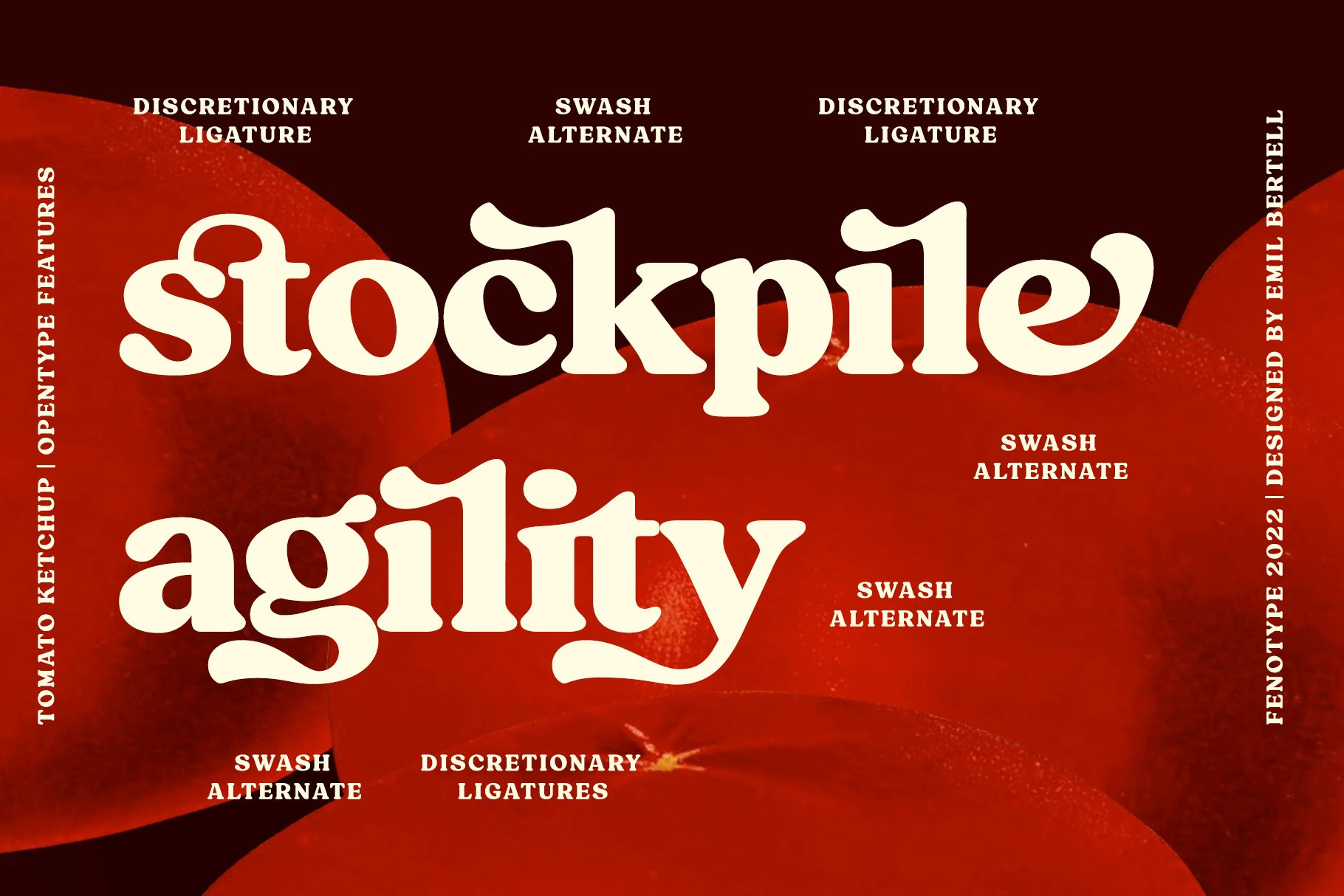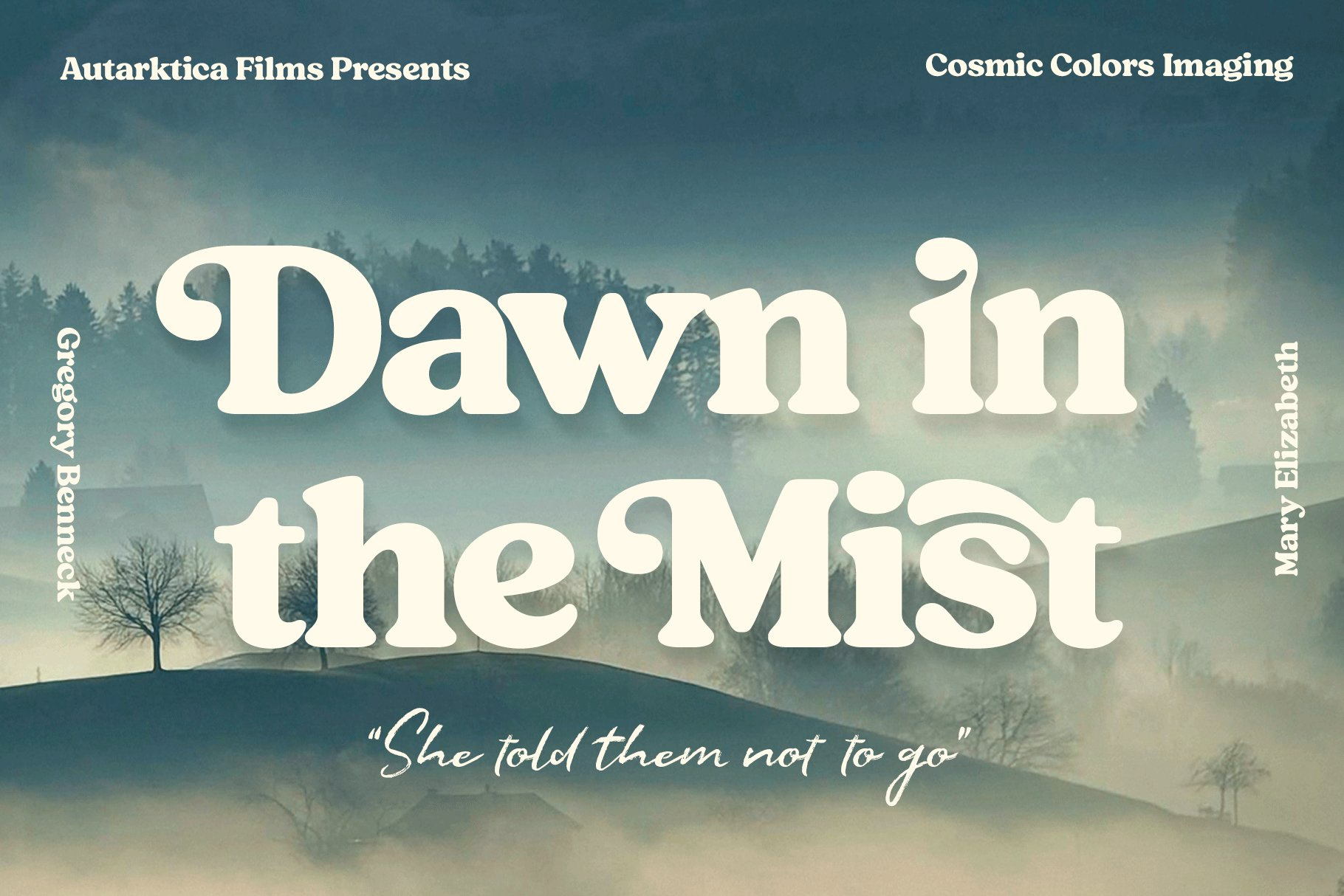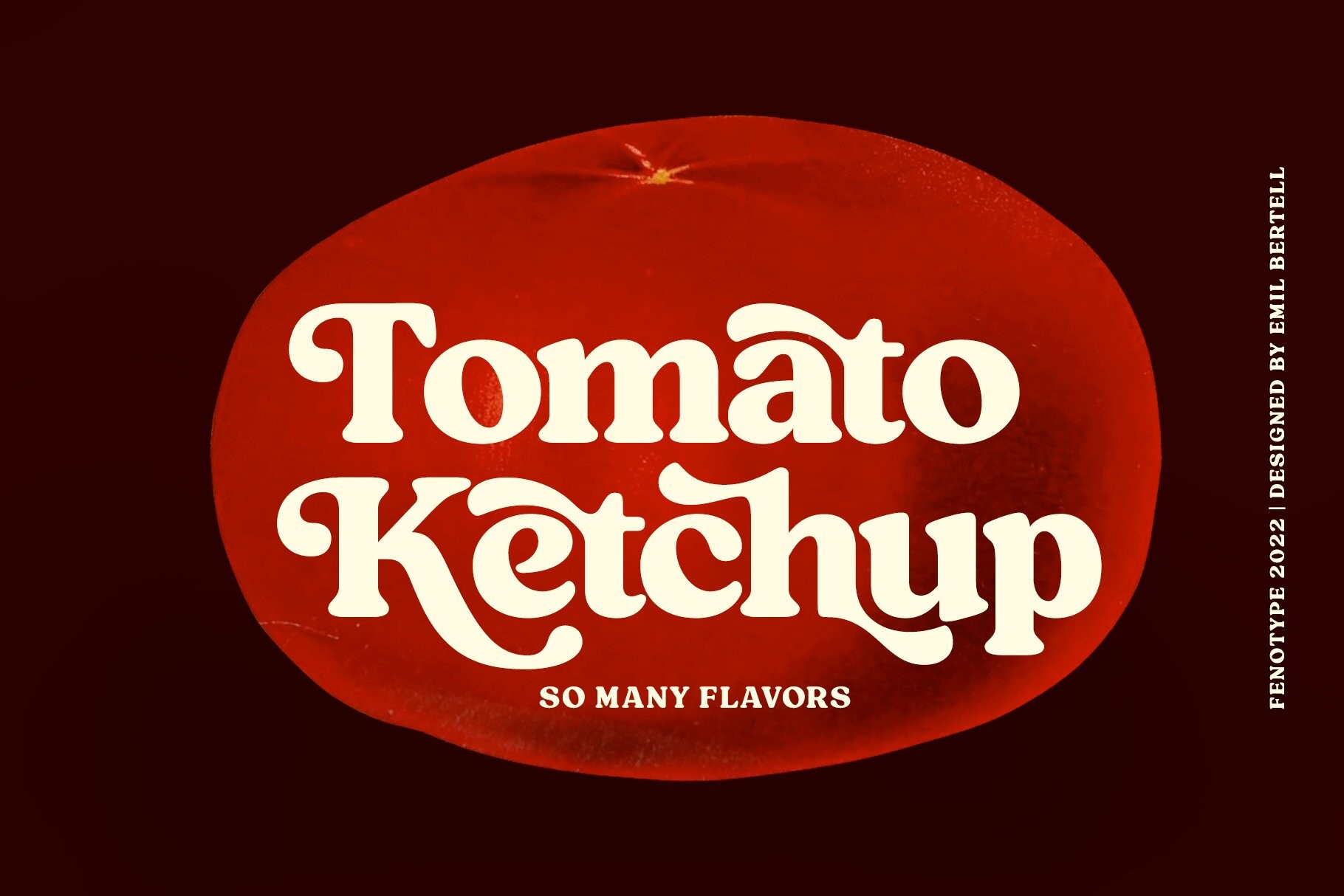
Tomato Ketchup Retro Serif Font . This is a bold serif typeface created by fenotype with a modern and retro style. Tomato ketchup is equipped with contextual, swash, stylistic and titling alternates as well as discretionary ligatures and even more extra alternates. Tomato ketchup is a bold vintage style serif font with a nonchalant charm and sturdy confidence. Tomato ketchup is a bold vintage style serif font with a nonchalant charm and sturdy confidence. This typeface has two styles and was published by fenotype. Tomato ketchup has a recognizable flavour and a reminiscence of familiar warm. Tomato ketchup has a recognizable flavour and a reminiscence of familiar warm nostalgic feeling. Tomato ketchup has a recognizable flavour and a reminiscence of familiar warm. Tomato ketchup is a bold vintage style serif font with a nonchalant charm and sturdy confidence. Tomato ketchup has a recognizable flavor and. Tomato ketchup is a bold vintage style serif font with a nonchalant charm and sturdy confidence. Tomato ketchup is a bold vintage style serif font in two styles with a nonchalant charm and sturdy confidence. Tomato ketchup is a bold vintage style serif font with a nonchalant charm and sturdy confidence in. Designed by emil bertell, tomato ketchup is a display serif and retro font family. Tomato ketchup is a bold vintage style serif font.
Tomato ketchup is a bold vintage style serif font with a nonchalant charm and sturdy confidence. Tomato ketchup is a bold vintage style serif font with a nonchalant charm and sturdy confidence in. Tomato ketchup is a bold vintage style serif font with a nonchalant charm and sturdy confidence. Tomato ketchup has a recognizable flavor and. Designed by emil bertell, tomato ketchup is a display serif and retro font family. Tomato ketchup is equipped with contextual, swash, stylistic and titling alternates as well as discretionary ligatures and even more extra alternates. Tomato ketchup has a recognizable flavour and a reminiscence of familiar warm nostalgic feeling. This is a bold serif typeface created by fenotype with a modern and retro style. Tomato ketchup is a bold vintage style serif font in two styles with a nonchalant charm and sturdy confidence. Tomato ketchup has a recognizable flavour and a reminiscence of familiar warm.
Tomato Ketchup Retro Serif Font Tomato ketchup has a recognizable flavour and a reminiscence of familiar warm. This typeface has two styles and was published by fenotype. Tomato ketchup is a bold vintage style serif font. Tomato ketchup is a bold vintage style serif font with a nonchalant charm and sturdy confidence in. This is a bold serif typeface created by fenotype with a modern and retro style. Tomato ketchup is a bold vintage style serif font with a nonchalant charm and sturdy confidence. Tomato ketchup is a bold vintage style serif font in two styles with a nonchalant charm and sturdy confidence. Tomato ketchup has a recognizable flavour and a reminiscence of familiar warm. Tomato ketchup is a bold vintage style serif font with a nonchalant charm and sturdy confidence. Tomato ketchup has a recognizable flavour and a reminiscence of familiar warm. Tomato ketchup has a recognizable flavour and a reminiscence of familiar warm nostalgic feeling. Tomato ketchup is a bold vintage style serif font with a nonchalant charm and sturdy confidence. Tomato ketchup is a bold vintage style serif font with a nonchalant charm and sturdy confidence. Tomato ketchup has a recognizable flavor and. Tomato ketchup is equipped with contextual, swash, stylistic and titling alternates as well as discretionary ligatures and even more extra alternates. Designed by emil bertell, tomato ketchup is a display serif and retro font family.
Tomato Ketchup Font Family by Fenotype Font Bros Tomato Ketchup Retro Serif Font This is a bold serif typeface created by fenotype with a modern and retro style. Tomato ketchup is a bold vintage style serif font. Tomato ketchup has a recognizable flavour and a reminiscence of familiar warm. Tomato ketchup is a bold vintage style serif font with a nonchalant charm and sturdy confidence in. Tomato ketchup is a bold vintage style. Tomato Ketchup Retro Serif Font.